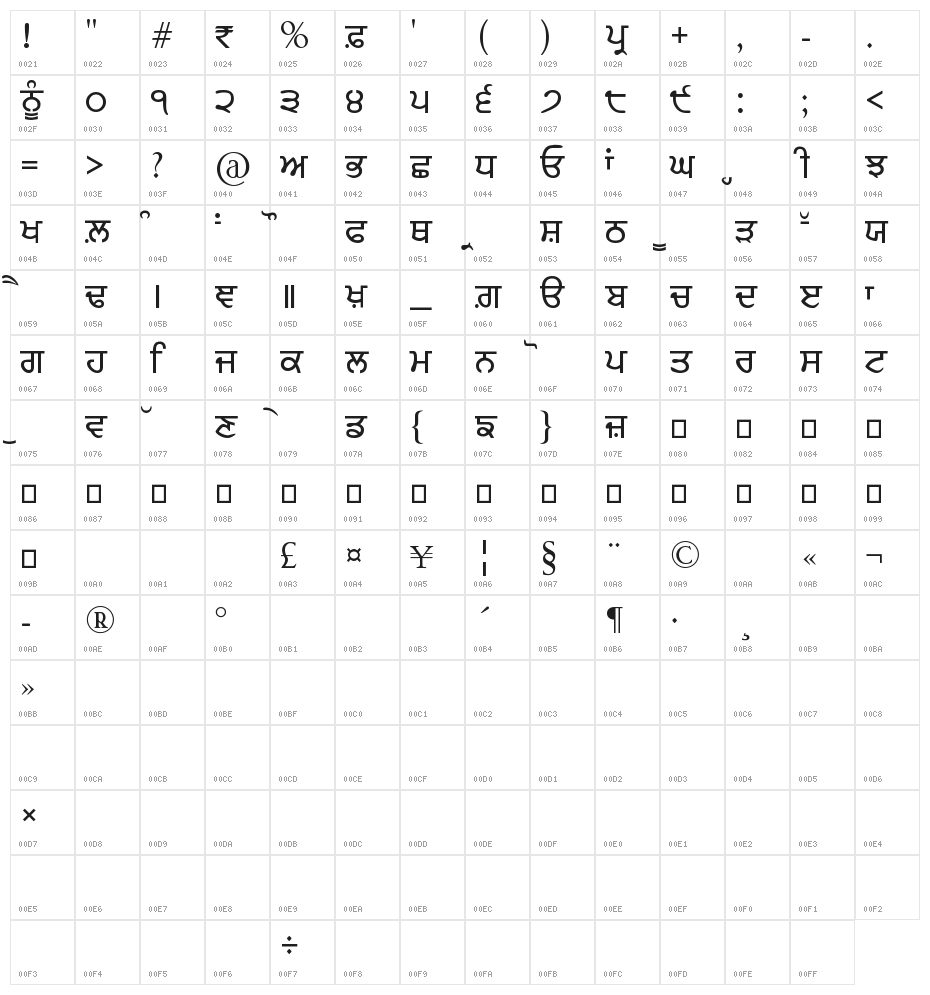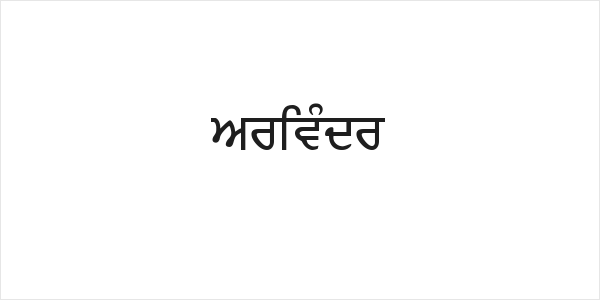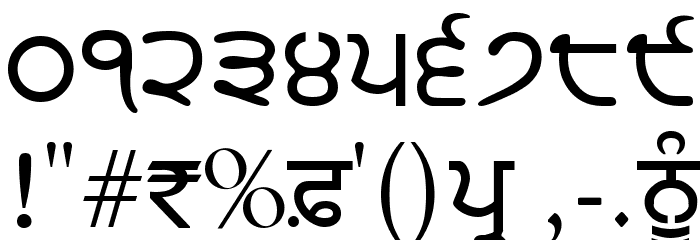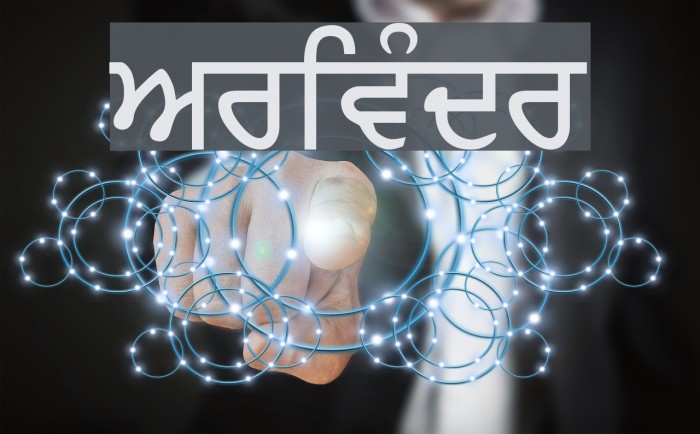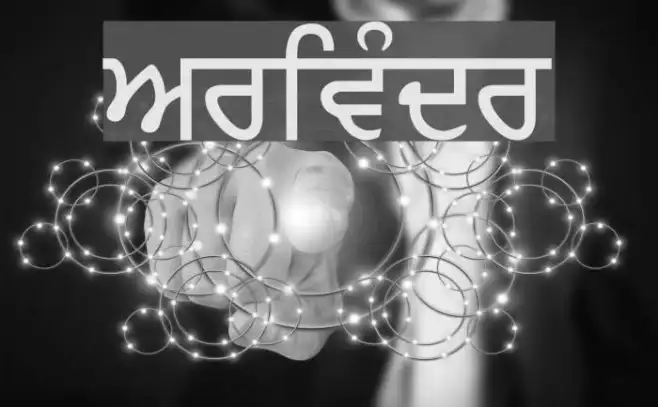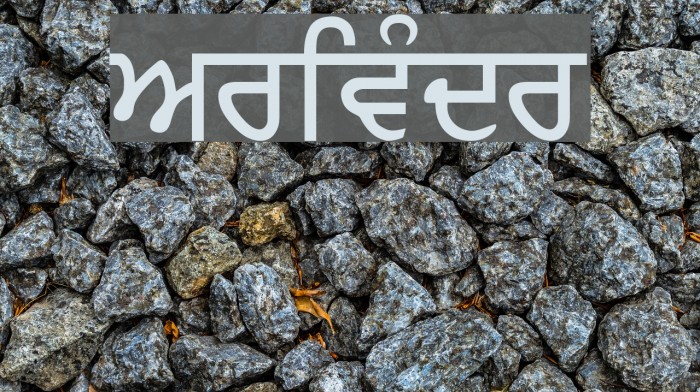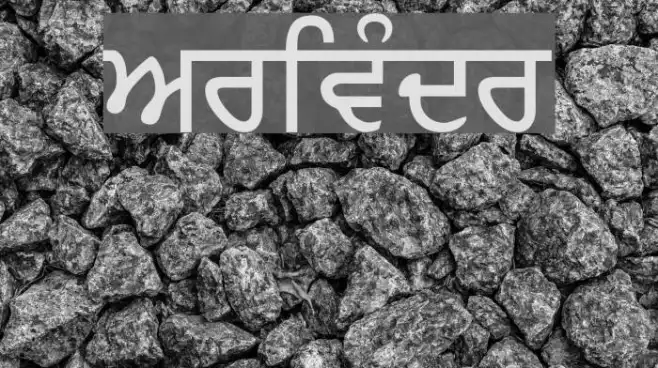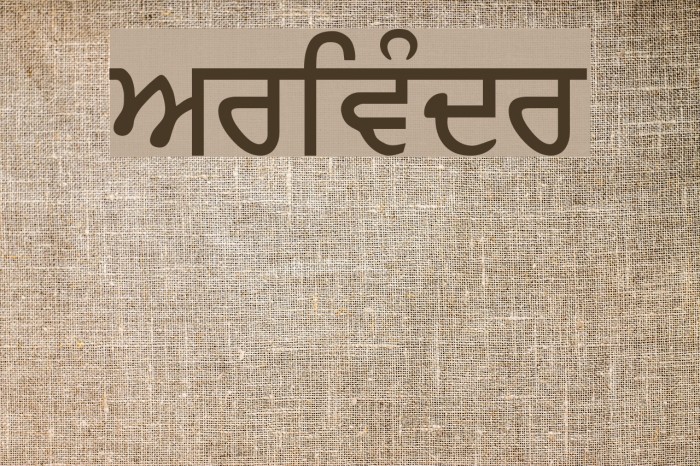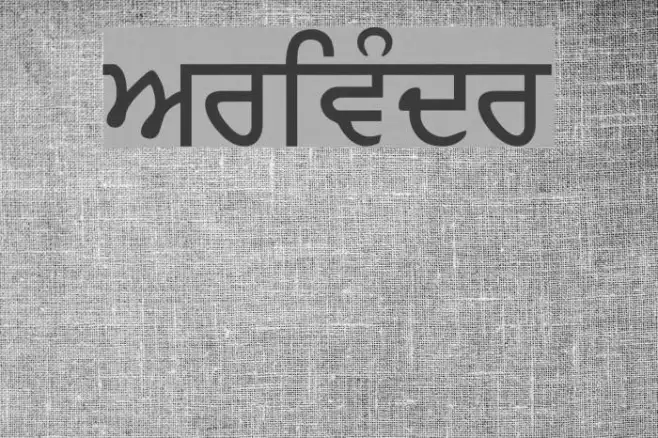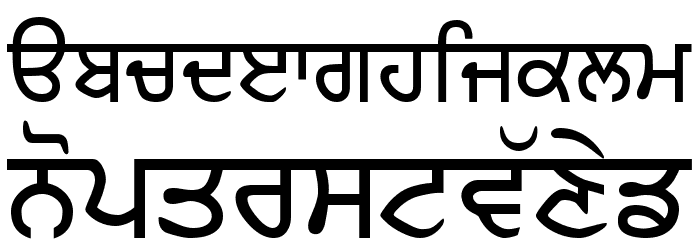
ArivMdr Font
ArivMdr Description
This font features a modern and clean design with a focus on readability and clarity. The characters are well-defined with smooth curves and consistent stroke widths, making it suitable for both digital and print media. The numerals are distinct and easy to distinguish, while the special characters are designed to complement the overall aesthetic. The font maintains a balanced appearance with a harmonious blend of traditional and contemporary elements, making it versatile for various applications.